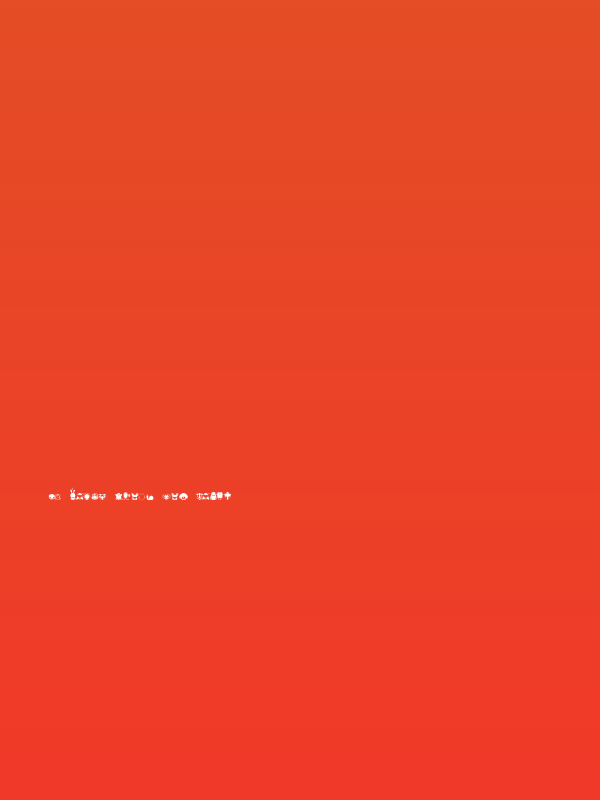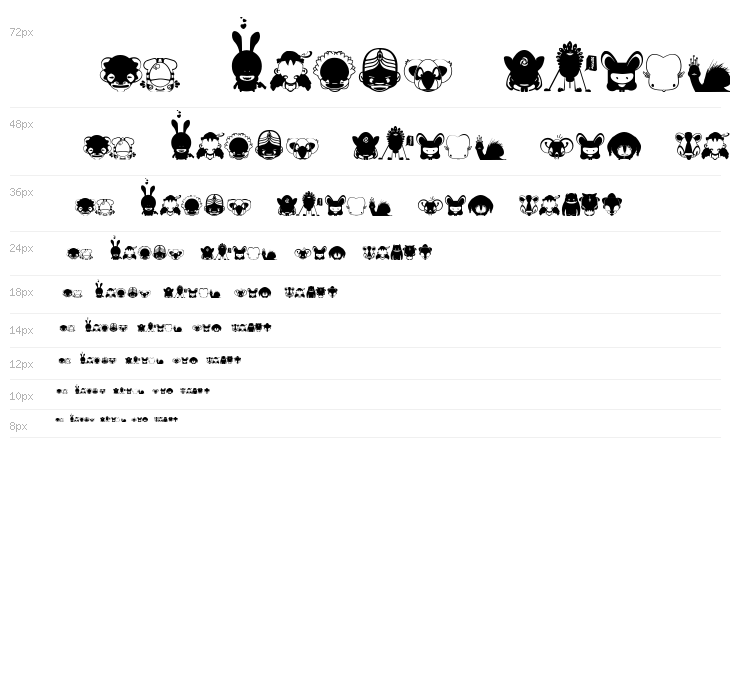
Pictoserie 4 Font
Pictoserie 4 Description
A playful and whimsical collection of illustrated character glyphs, each representing a unique cartoon-like figure with bold, solid black shapes and minimal detail, designed for decorative or thematic use rather than traditional text.
| Overall Style | Playful, Whimsical, Decorative |
| Use Case | Icons, Decorative elements, Themed graphics |
| Proposed Projects | ChildrenΓ’β¬β’s books, party invitations, posters, stickers, branding for kidsΓ’β¬β’ products, playful web design elements. |